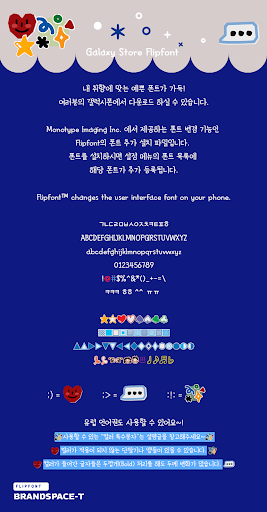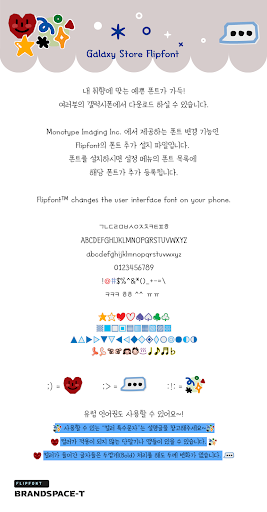
BSTPaperTalk™ Korean Flipfont
BSTPaperTalk
This typeface is a series of diary entries in which you calmly and meticulously wrote down each other's feelings and stories on rolling papers. It is "Soon, My, My Brand" BSTPaperTalk, with its cute and lively modules and serifs on the handwriting showing its meticulousness.
+ ;) Brand Space-T's point-ding bet, a pretty smile! Origami heart!
+ ;> "Speech bubble" Dingbet!
+ :!: "Shining Emotions" Dingbet!
+ ♂ (Boy) ♀ (Girl) There is!
+ Color dingbet list.
#@★☆♥♡♠♤♣♧▒■□▣▤▥▦▧▨▩▲△▶▷▼▽◀◁◆◇◈◊○◎●◐◑☎☏☜☞♀♂♨♩♪♬♭
;) ;> :!:
+ Even if the colored letters are bolded, there is no change in thickness.